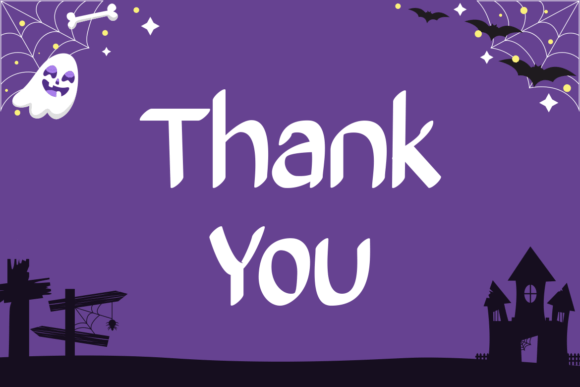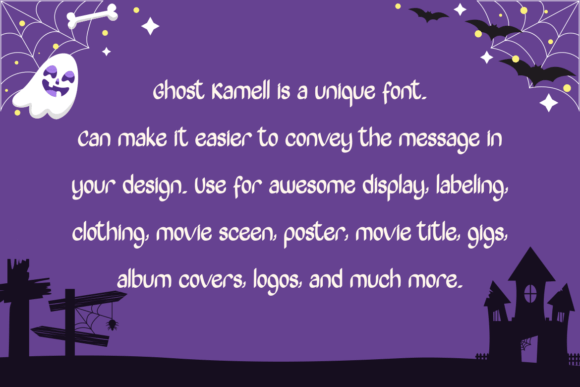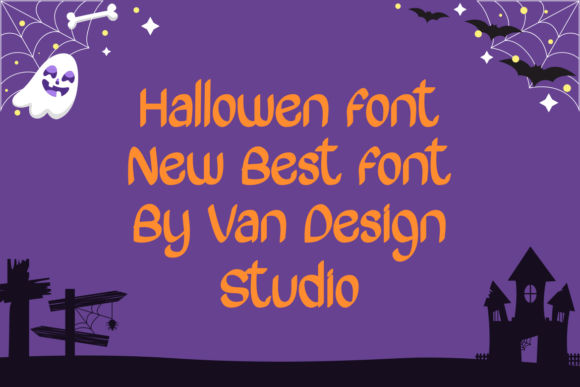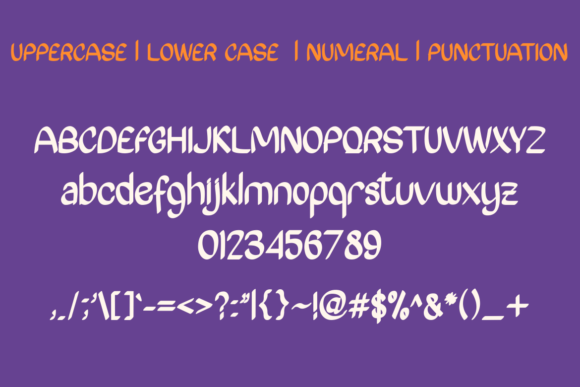
Unleash Your Creativity with Ghost Kamell Font: A Unique Design Essential
In the world of design, the right font can make all the difference in conveying your message effectively. For designers and crafters looking for a unique and versatile font to elevate their projects, Ghost Kamell Font is an exceptional choice. This distinctive font is designed to help you create stunning visual displays that capture attention and leave a lasting impression.
What Makes Ghost Kamell Font Stand Out?
Ghost Kamell Font is not just another font; it’s a creative tool that can transform your designs. Its unique style and versatility make it perfect for a wide range of applications, from display and labeling to clothing, movie screens, posters, movie titles, gigs, album covers, logos, and much more. Whether you’re working on a personal project or a professional assignment, Ghost Kamell Font can help you achieve your design goals.
Key Features of Ghost Kamell Font
- Uppercase & Lowercase Letters: Ghost Kamell Font includes both uppercase and lowercase letters, providing you with the flexibility to create dynamic and engaging text.
- Numbers & Punctuation: The font also includes numbers and punctuation, ensuring that you have everything you need to craft compelling messages.
Ghost Kamell Font is incredibly versatile, making it suitable for a multitude of design projects. Here are some ideas to get you started:
- Movie Titles and Posters: Create eye-catching movie titles and posters that grab attention and entice audiences.
- Album Covers: Design stunning album covers that reflect the music and style of the artist.
- Logos and Branding: Use Ghost Kamell Font to create unique logos and branding elements that set your business apart.
- Clothing and Apparel: Add a touch of personality to your clothing and apparel designs with this distinctive font.
- Gigs and Event Promotions: Create promotional materials for gigs and events that stand out from the crowd.
Why Choose Ghost Kamell Font?
With so many fonts available, why choose Ghost Kamell Font? Here are just a few reasons:
- Unique Style: Ghost Kamell Font offers a one-of-a-kind style that will set your designs apart from the rest.
- Versatility: This font is incredibly versatile, making it suitable for a wide range of design projects.
- Easy to Use: With its clear and clean design, Ghost Kamell Font is easy to read and use in various contexts.
Ghost Kamell Font is a unique and versatile design essential that can help you take your designs to the next level. With its distinctive style, comprehensive character set, and multiple file formats, this font is perfect for designers and crafters looking to create stunning visual displays. Whether you’re working on a personal project or a professional assignment, Ghost Kamell Font is an excellent choice. So why wait? Download Ghost Kamell Font today and unleash your creativity!